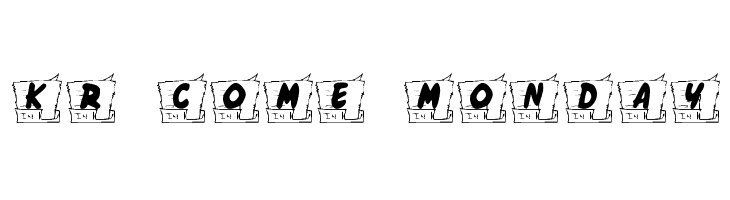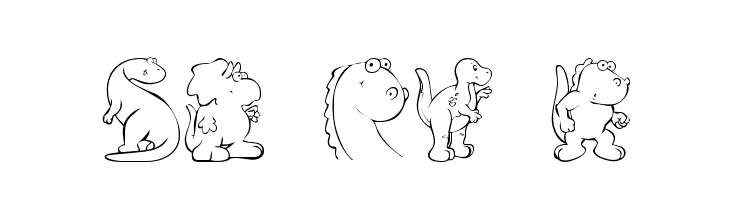
A playful, hand-drawn font with characters enclosed in doodle-like frames.
A decorative font with heart-themed symbols perfect for Valentine's designs.
A whimsical font with dinosaur illustrations for each character.
A decorative collection of Valentine's-themed elements with hearts and flowers.
A collection of graduation-themed illustrations in a playful, cartoonish style.
An artistic, floral-inspired decorative font with intricate embellishments.
The image contains decorative floral elements, not a standard font.
A decorative font with culturally inspired symbols and illustrations.
Cartoon gardening-themed dingbat illustrations.
A whimsical, bee-themed decorative font with bold, rounded characters.